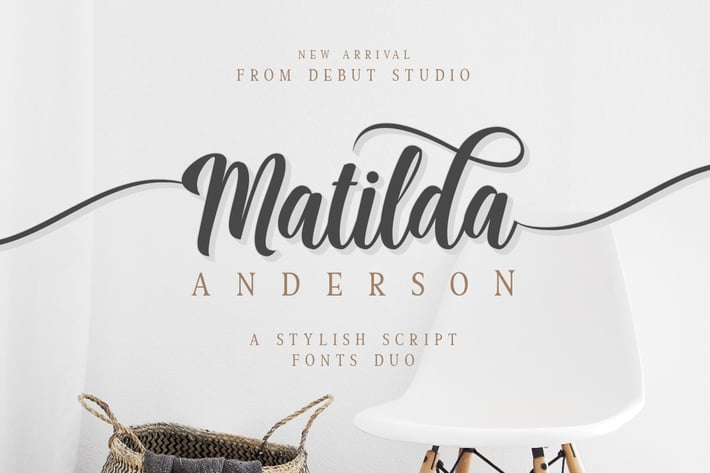
Matilda Anderson Font Duo
Introducing, our latest stuff, the Matilda Anderson Font Duo.
This font is suitable for wedding invitation, poster, quote, label, card name, and other stuff
- Alternate Stylistic Character
- Multilanguage Support